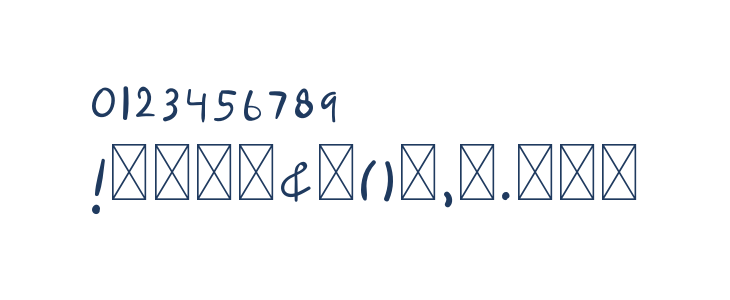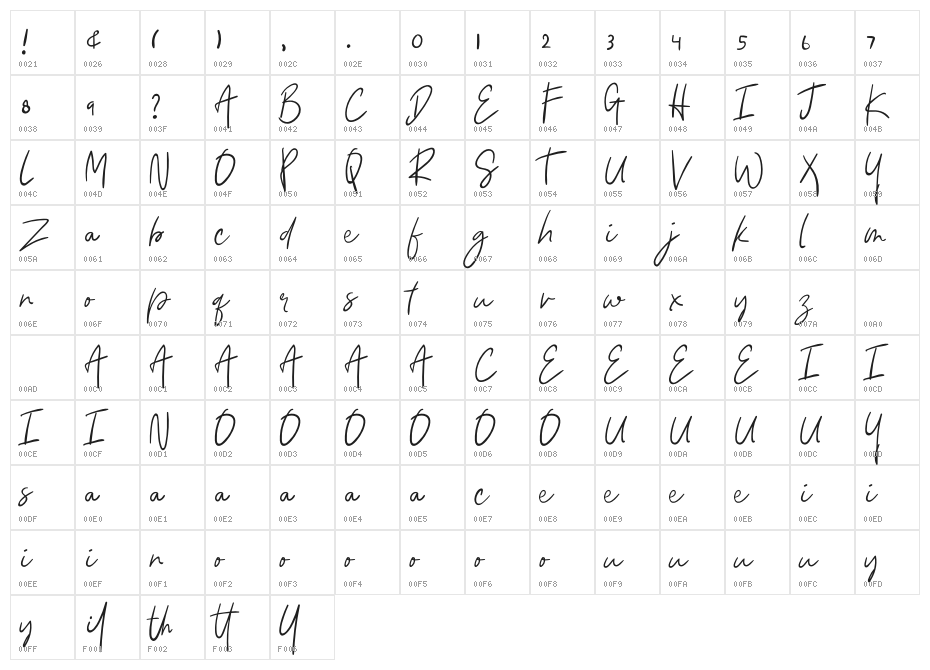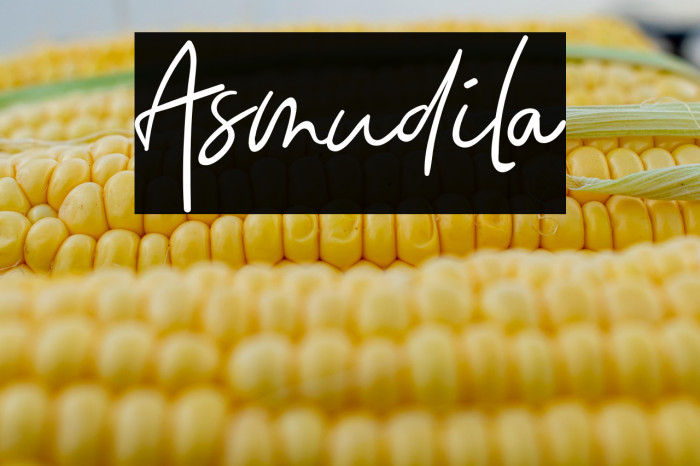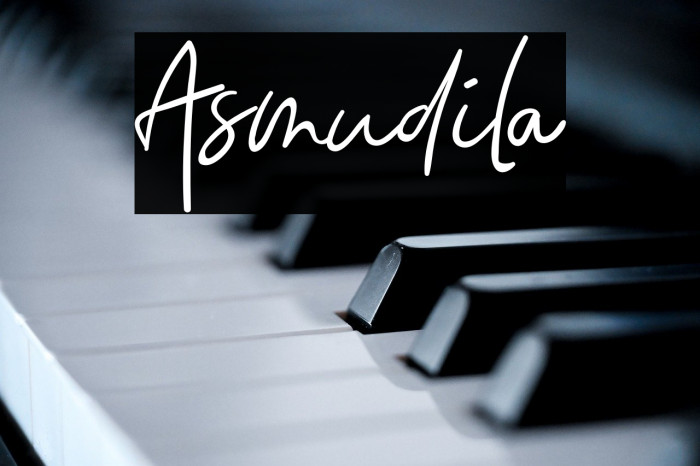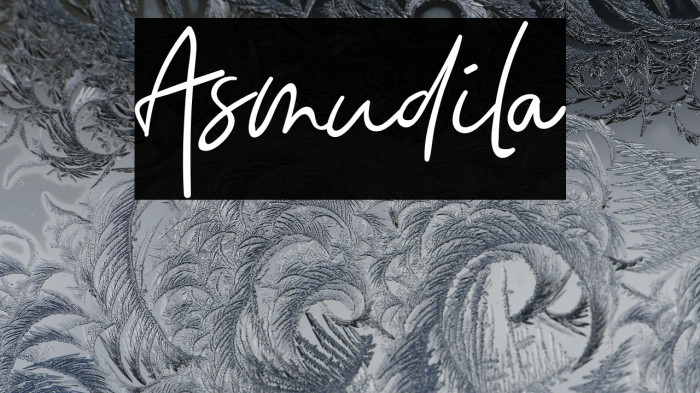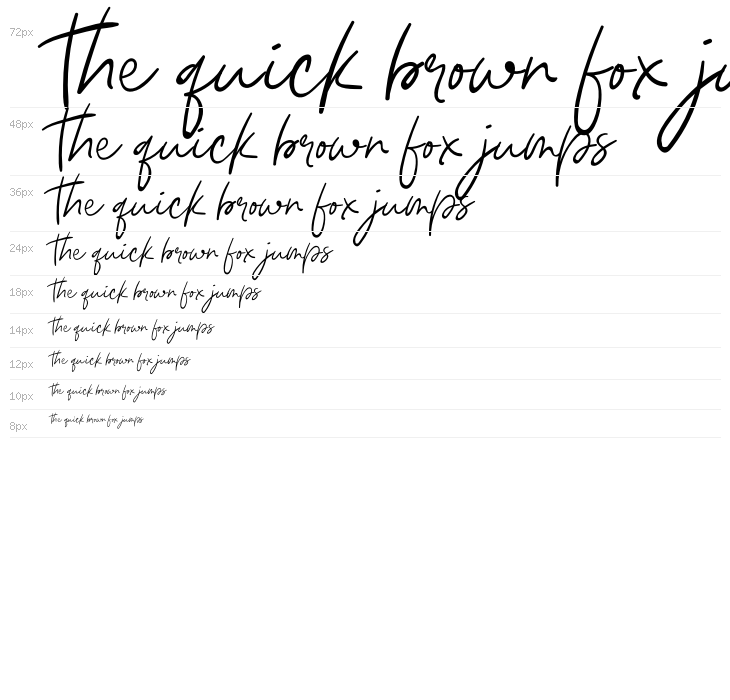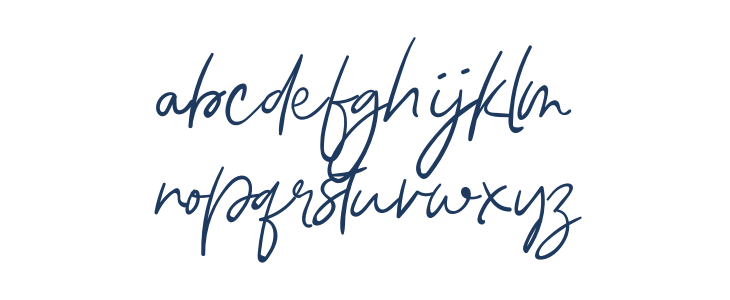
Asmudila Font
Asmudila Description
This font exudes a casual, handwritten style with a dynamic and fluid appearance. The letters are characterized by their elongated, flowing strokes, giving an impression of personal touch and creativity. The uppercase letters maintain a consistent height, while the lowercase letters exhibit a playful variation in size and slant, adding to the font's informal charm. The numerals are clear and legible, matching the overall aesthetic. Special characters are integrated seamlessly, maintaining the handwritten feel. This font is ideal for projects that require a personal, artistic touch, such as invitations, greeting cards, or creative branding.
| Overall Style | Casual, Artistic |
| Proposed Projects | Ideal for invitations, greeting cards, creative branding, and personal projects. |